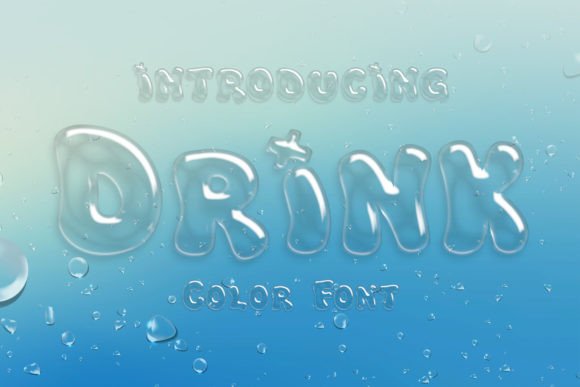
Introducing Drink Font, the perfect addition to your digital brand. This colorful font, created by Fox7, is not just another ordinary font, it's the Best Font For Digital Brand. Whether you're creating gorgeous invitations, beautiful stationary art, eye-catching social media posts, or cute greeting cards, Drink Font is the one font you need to make your brand stand out from the rest.
Drink Font is more than just a font; it's a masterpiece that will evoke emotions and creativity in anyone who uses it. With its cute and fun design, you'll fall in love with its authentic feel and become addicted to its vibrant colors. It's the font that you never knew you needed but can't live without.
This unique font is the perfect blend of modern and vintage, giving your creations a touch of sophistication that is sure to impress your clients and customers. The possibilities are endless with Drink Font, and it's sure to elevate your brand to new heights.